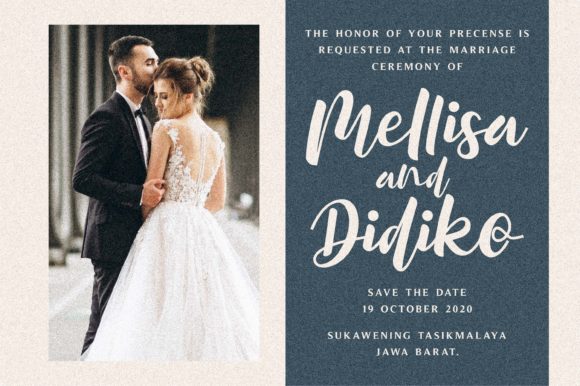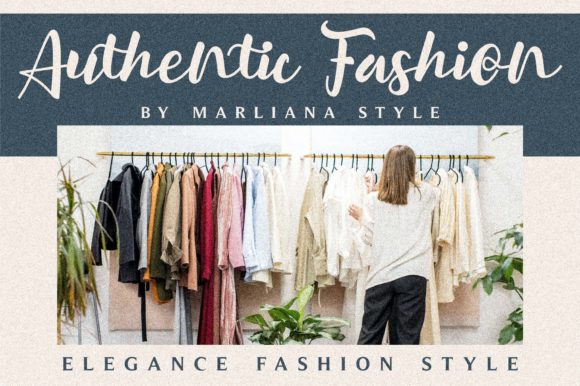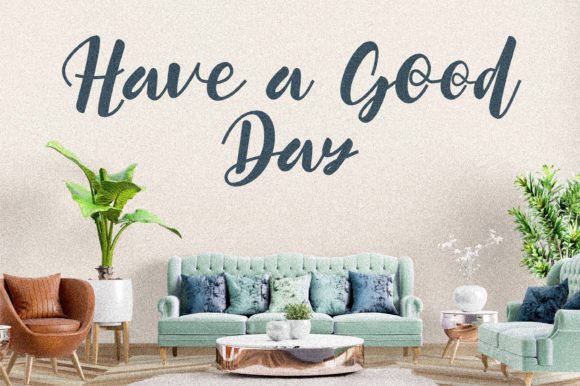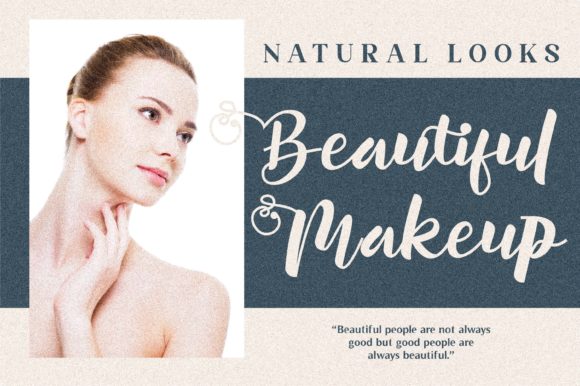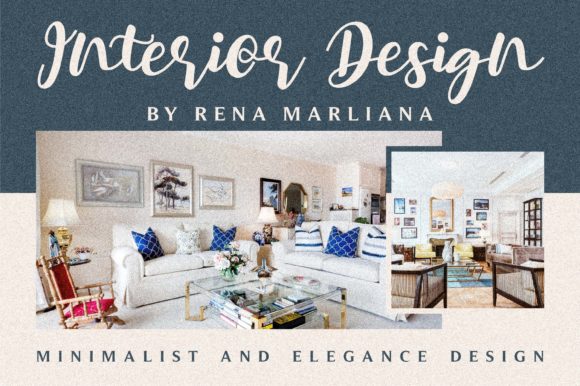
Introduction to Mellisa Disella Font
Mellisa Disella is a sweet and delicate handwritten font.
Dainty and joyful, this font will be ideal for writing wedding invitations, cards or any other design that may need a romantic, personalized touch This font is PUA encoded which means you can access all of the glyphs and swashes with ease.
Mellisa Disella Font offers exceptional quality and versatility, making it a valuable addition to your design toolkit. Whether you’re creating for personal projects or commercial use, Mellisa Disella Font delivers professional results.